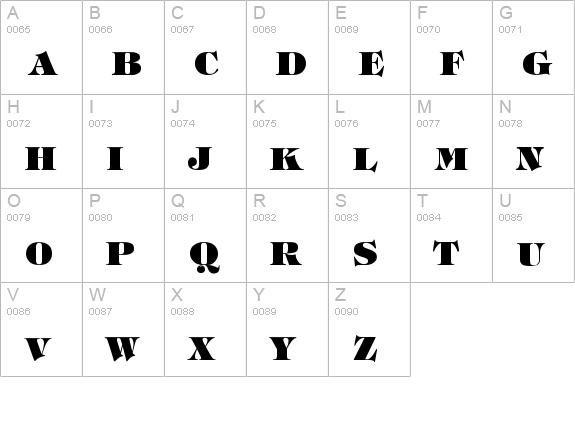
Dormeua-Heavy-Bold Font Details
Dormeua-Heavy-Bold is a heavy, high-impact variant in the Dormeua typeface family \xE2\x80\x94 well suited to high-impact headlines, posters, and display advertising.
Dormeua-Heavy-Bold is a striking and bold typeface that commands attention with its strong and impactful presence. Its heavy weight exudes confidence and authority, making it the perfect choice for headlines, titles, and other design elements that need to stand out. This font features thick, sturdy lines and a bold aesthetic that is both modern and timeless. The sharp edges and clean lines give it a sleek and polished look, while the heavy weight adds a sense of power and strength to any design. Dormeua-Heavy-Bold is a versatile font that can be used for a wide range of projects, from branding and advertising to editorial design and more. Its bold nature makes it ideal for making a statement and grabbing the viewer's attention. Best of all, Dormeua-Heavy-Bold is available for free download at FontsMarket.com. This means you can easily access this powerful and impactful font to enhance your design projects without any cost. Don't miss out on this opportunity to elevate your designs with Dormeua-Heavy-Bold!